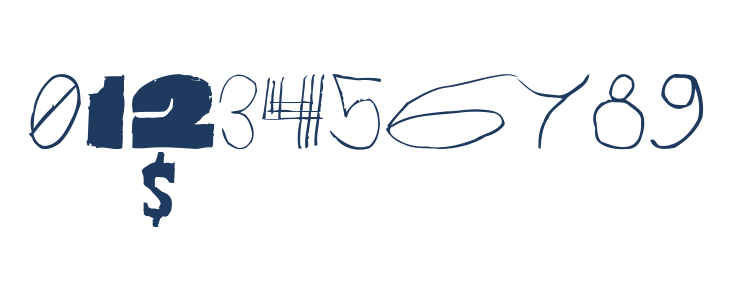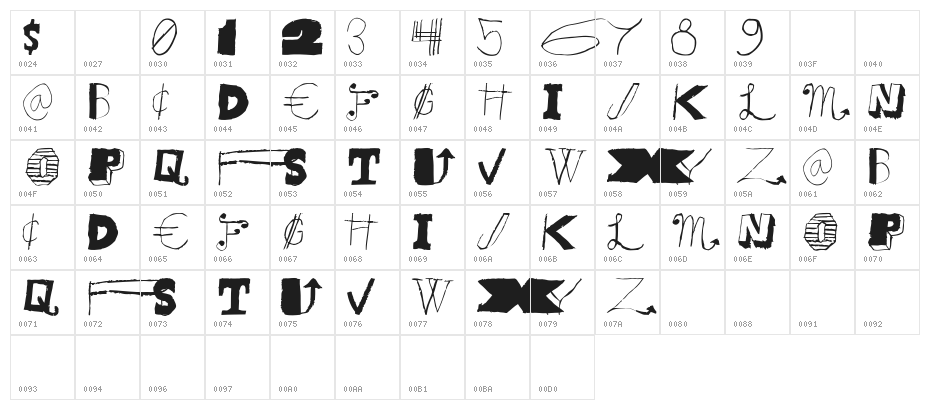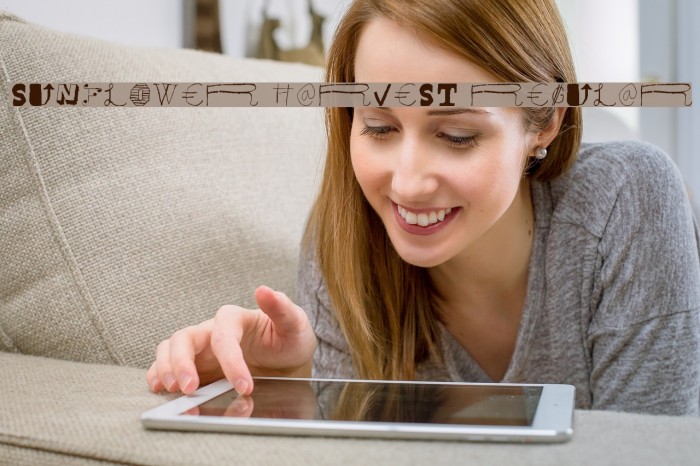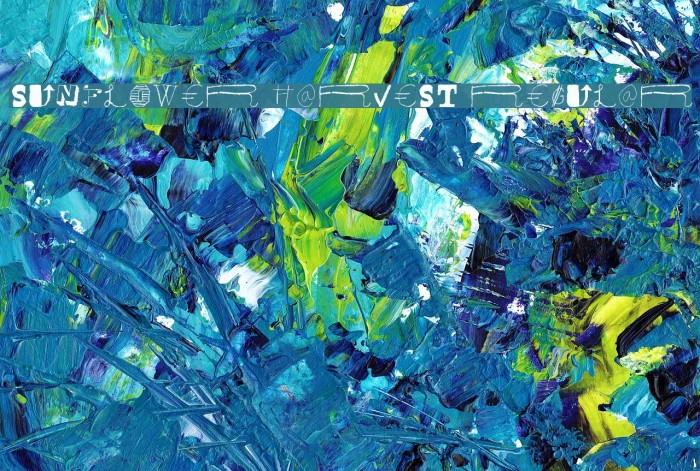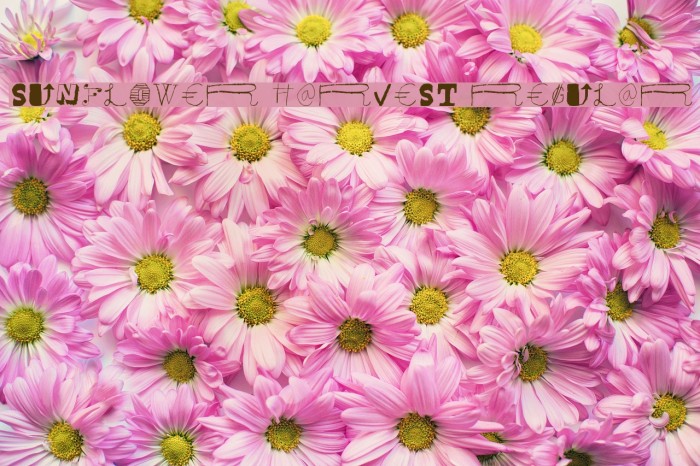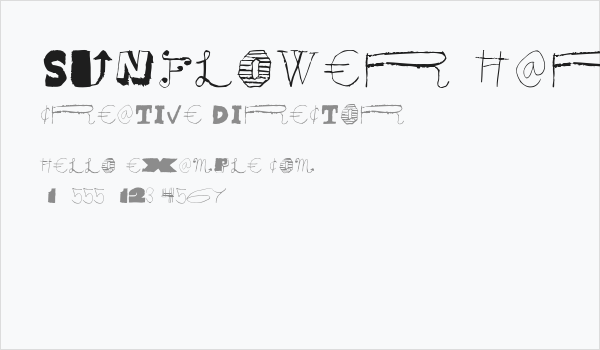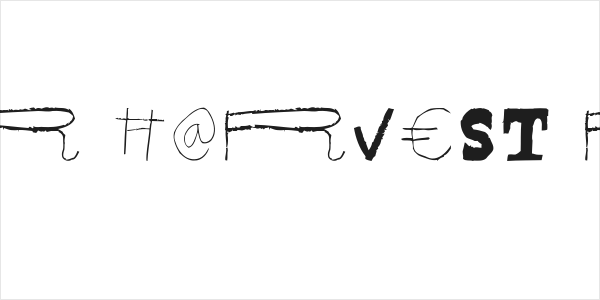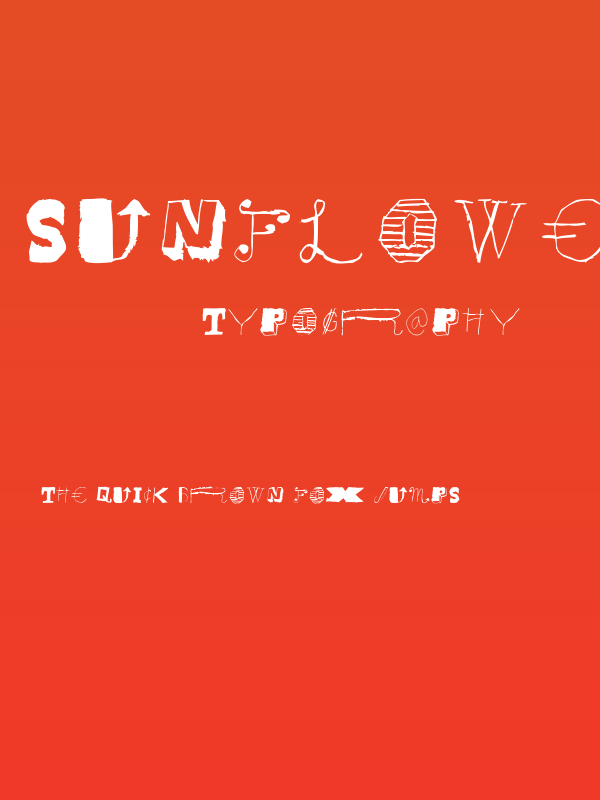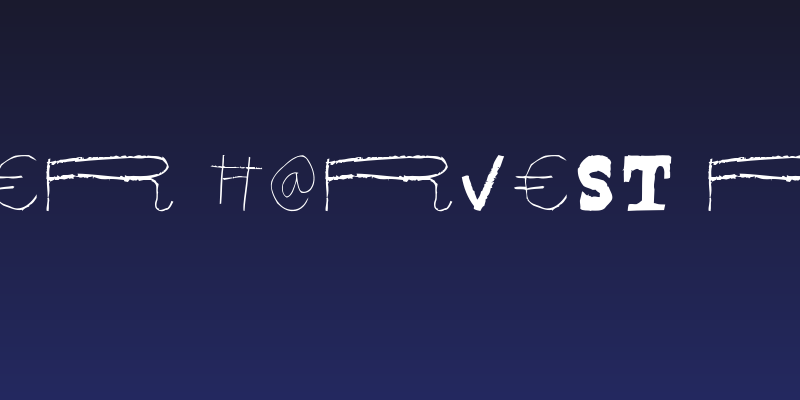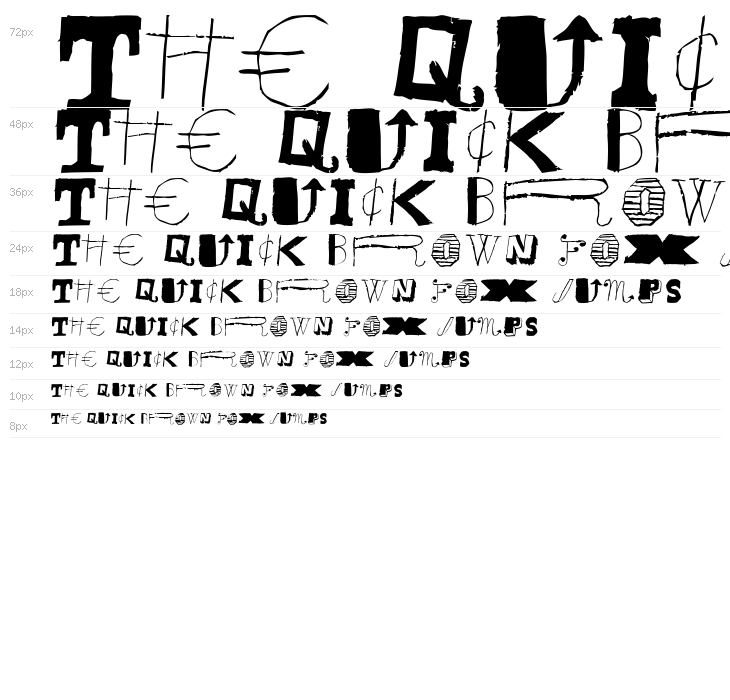
Sunflower Harvest Regular Font
Sunflower Harvest Regular Description
This font is a highly decorative and artistic typeface that combines a variety of unique and whimsical elements. Each character is distinct, featuring playful and unconventional designs that incorporate elements like swirls, lines, and bold shapes. The uppercase letters are particularly striking, with some characters resembling abstract art more than traditional letterforms. The numbers and special characters continue this theme, offering a mix of bold and intricate designs. This font is ideal for creative projects where a standout, artistic look is desired.
| Overall Style | Artistic, Whimsical |
| Use Case | Logos, Posters, Artistic Projects |
| Proposed Projects | Ideal for artistic posters, creative branding, album covers, and unique invitations. |